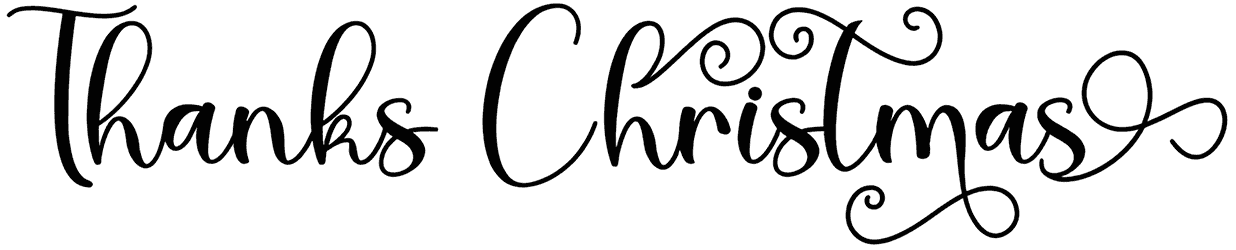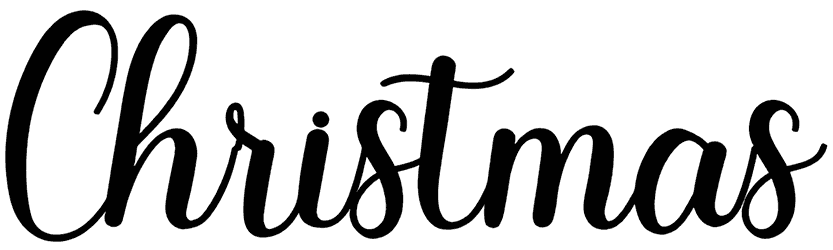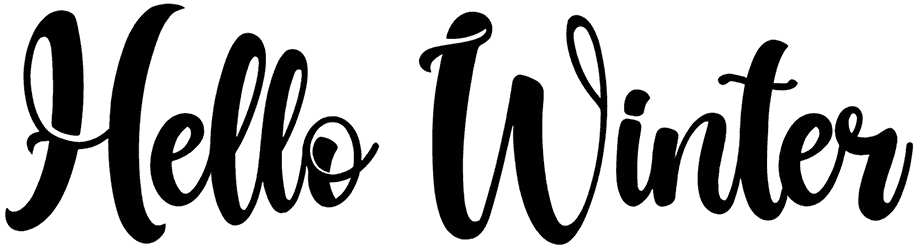
White Xmas Font
White Xmas is a holiday font with a Christmas theme that comes with iconic symbols; thus, it can add a minimalistic touch to your artwork, like flyers, illustrations, gift cards, greeting cards, and social media posts.
This script font is masterfully created with well-rounded edges, and in two different styles, so it carries a sense of drama, playfulness, love, and dynamism. We strongly encourage you to overlook the lack of numbers and try this masterpiece in your graphic content.
Use symbols * + # for stars and snowflakes.
Use underscore _ anywhere in a word to make a swash.
Example: Sea_son
Use multiple underscores for different swashes.
Example: Christ_______mas
Designed by: Mans Greback